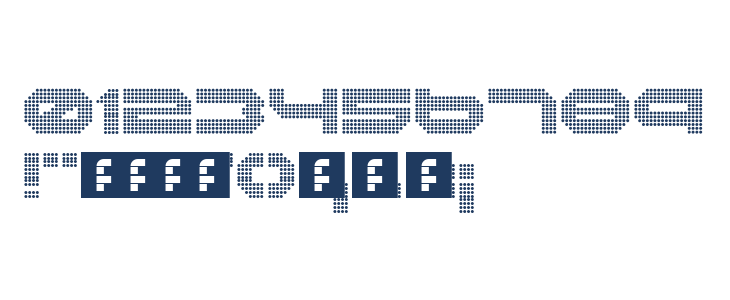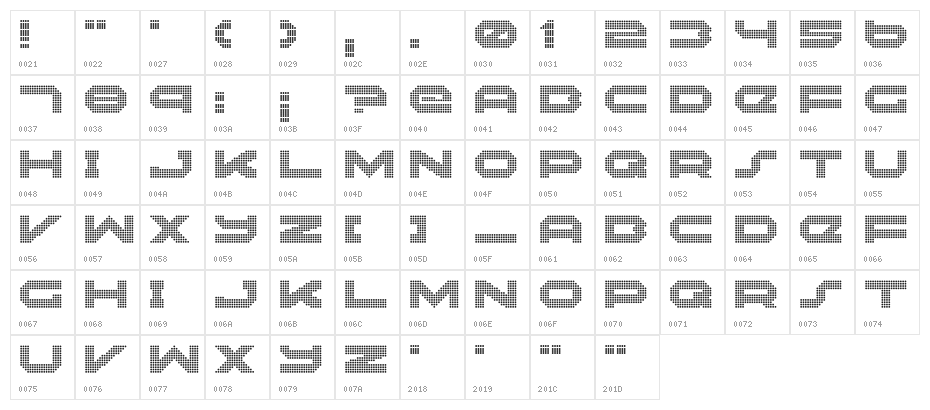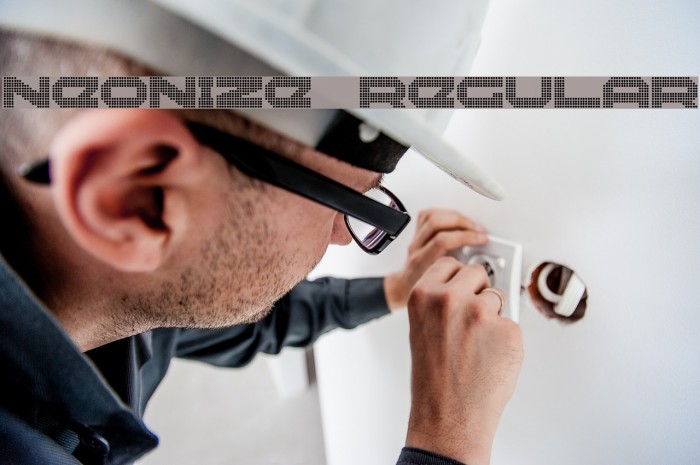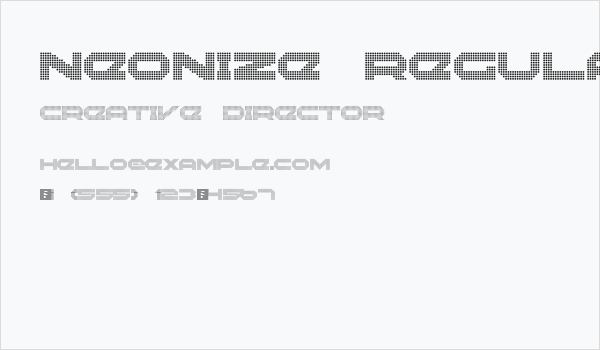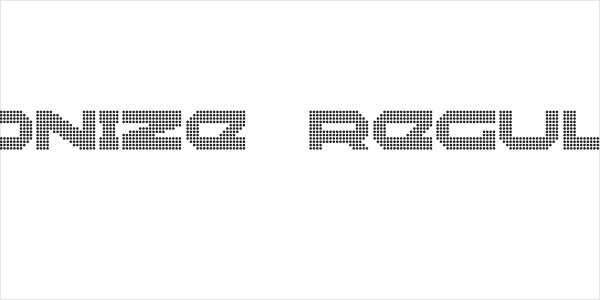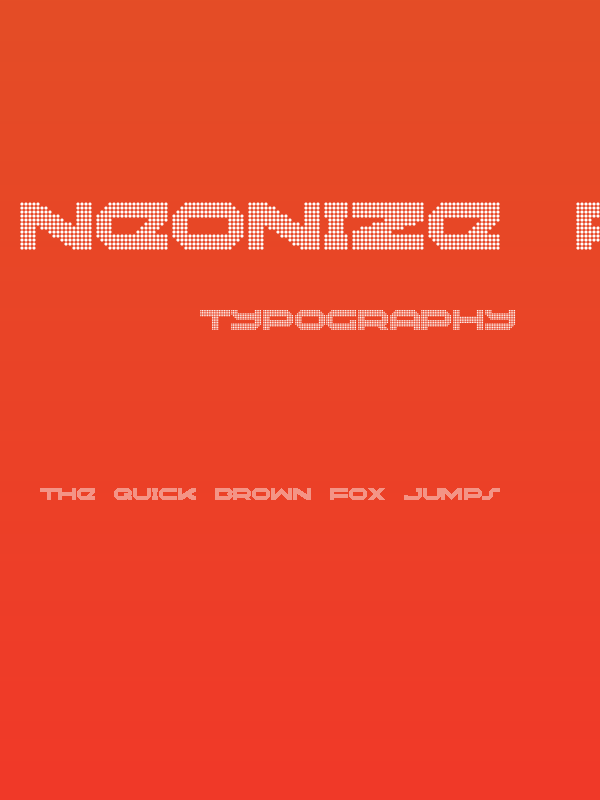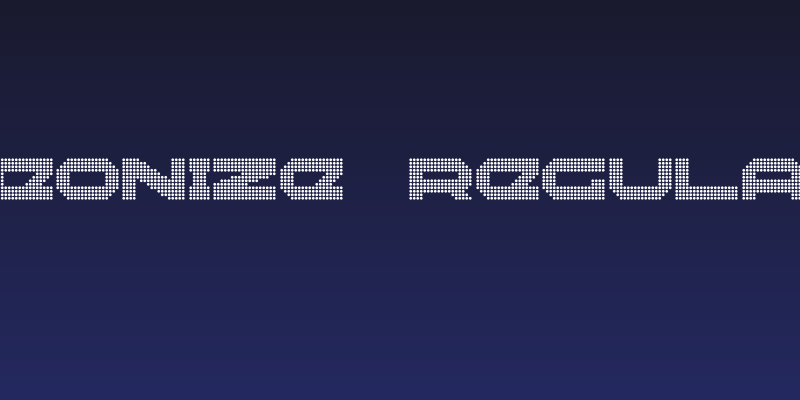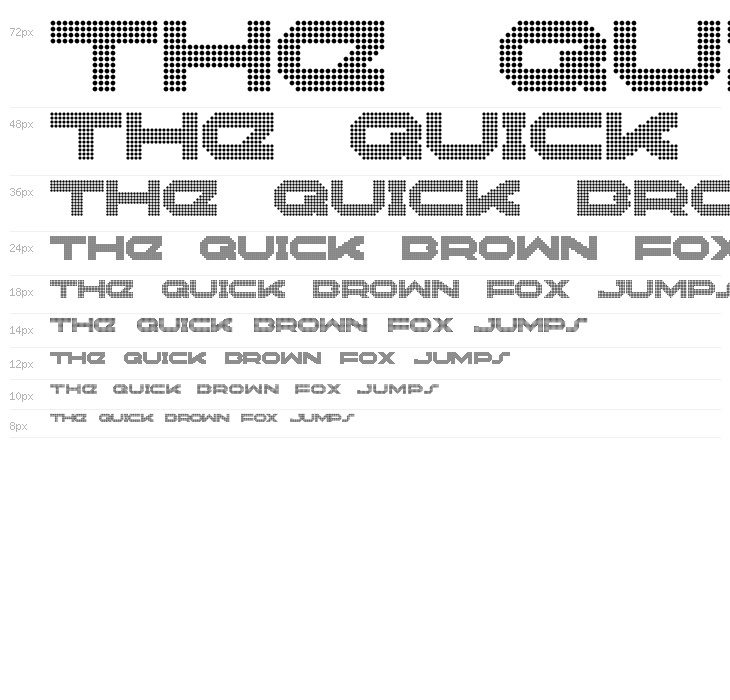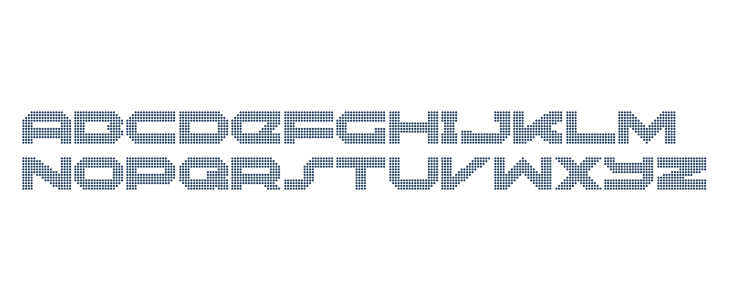
Neonize Regular Font
Neonize Regular Description
This font features a unique design composed of small, evenly spaced dots that form each character, creating a digital or electronic display appearance. The characters are uniformly structured, maintaining a consistent height and width, which enhances readability despite the unconventional style. The font's geometric precision and futuristic aesthetic make it stand out, ideal for projects that require a modern and tech-savvy look. The uppercase and lowercase letters, along with numbers and special characters, are all crafted with the same dot matrix pattern, ensuring a cohesive visual experience.
| Proposed Projects | Ideal for digital displays, tech-themed posters, video game graphics, and modern branding. |